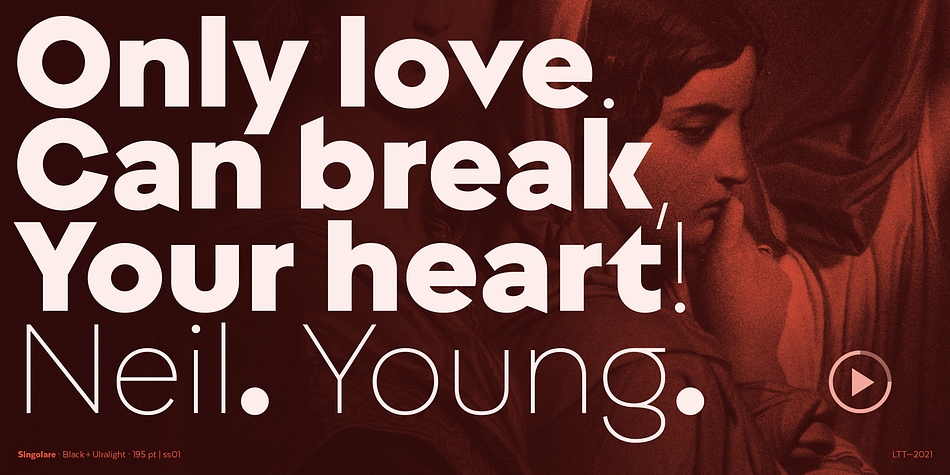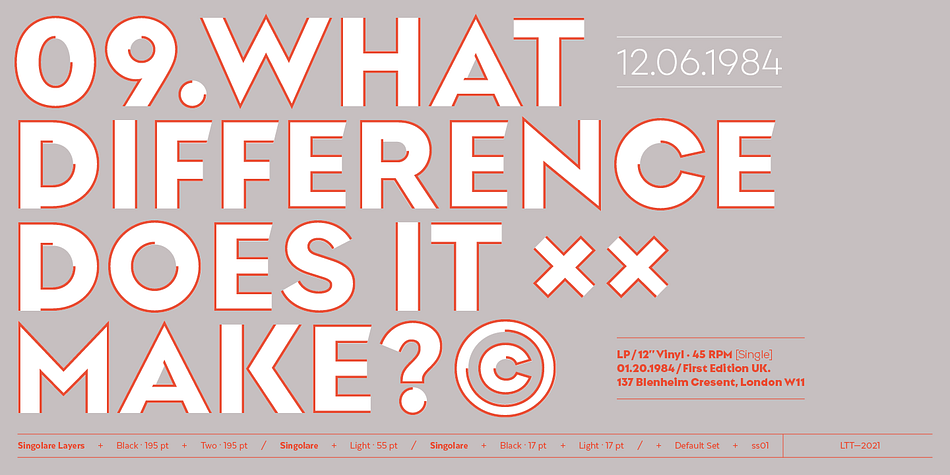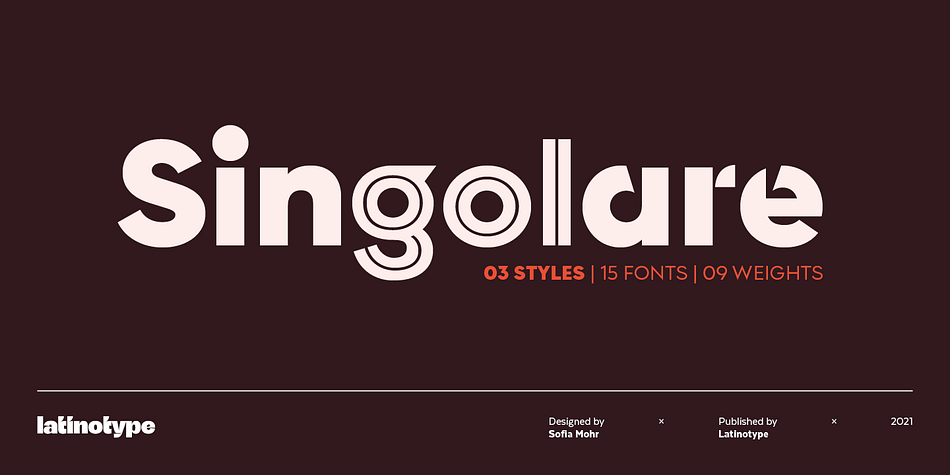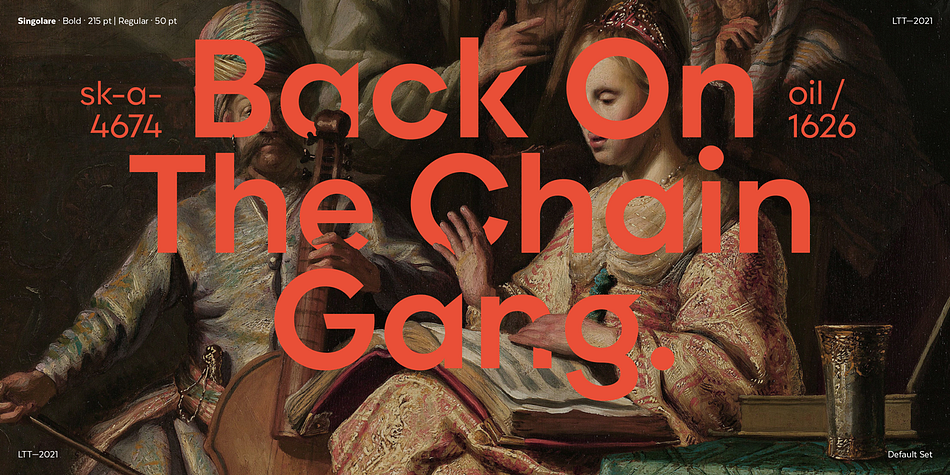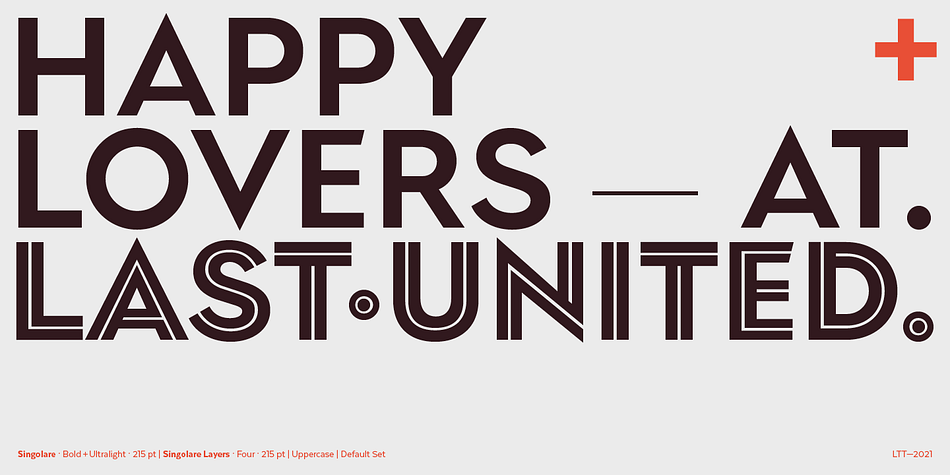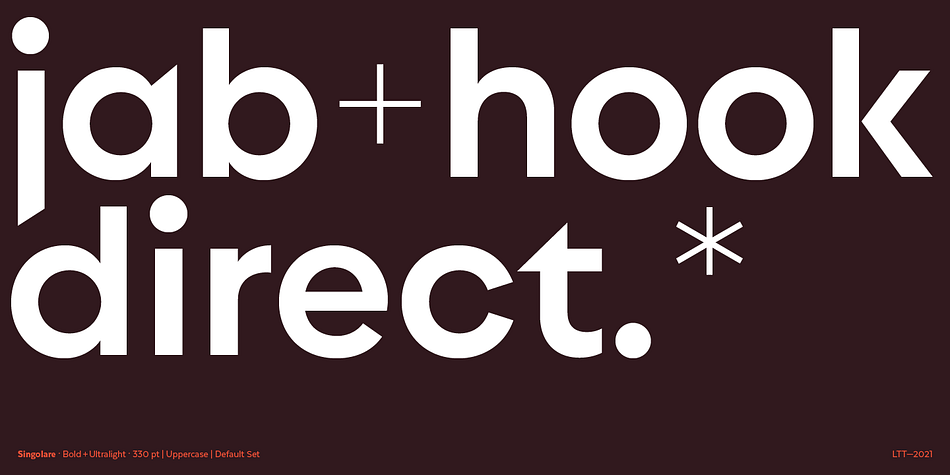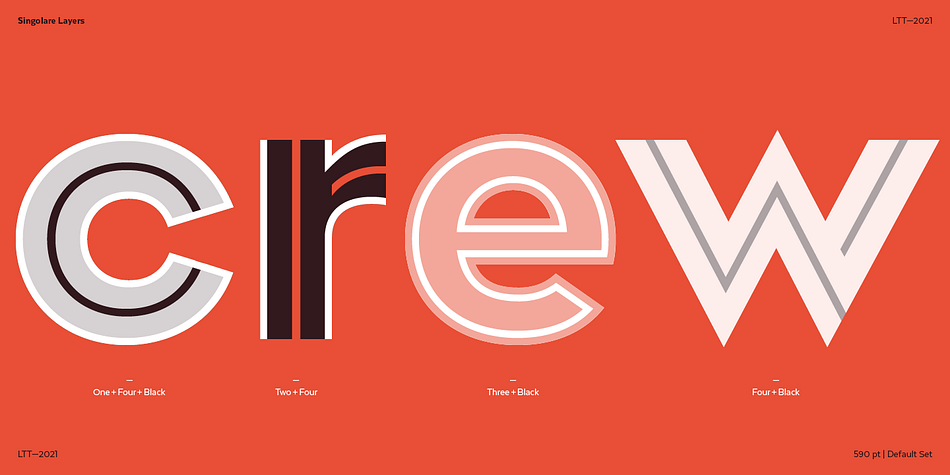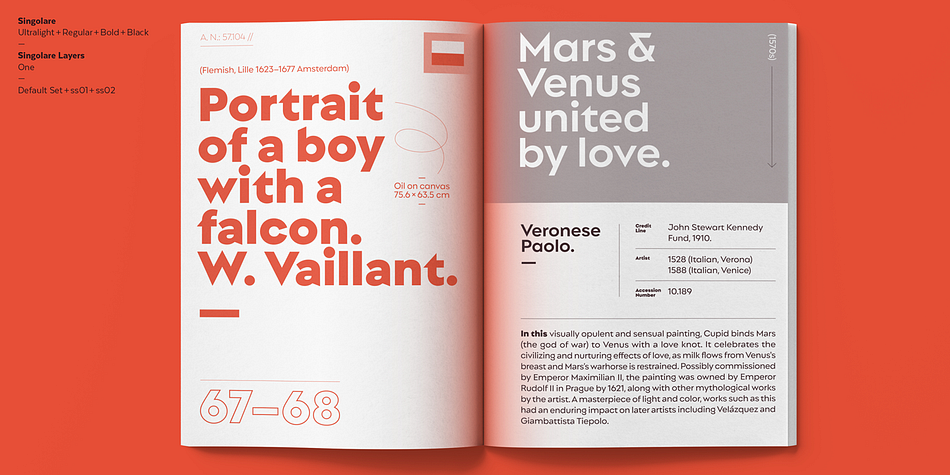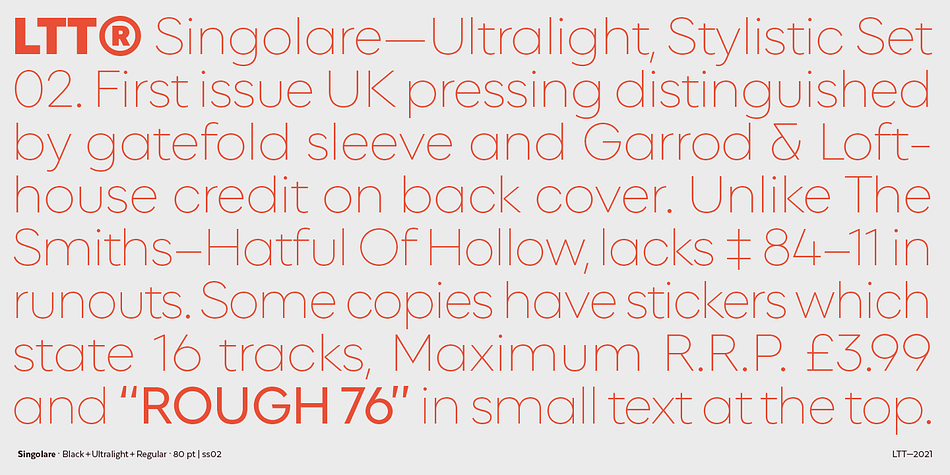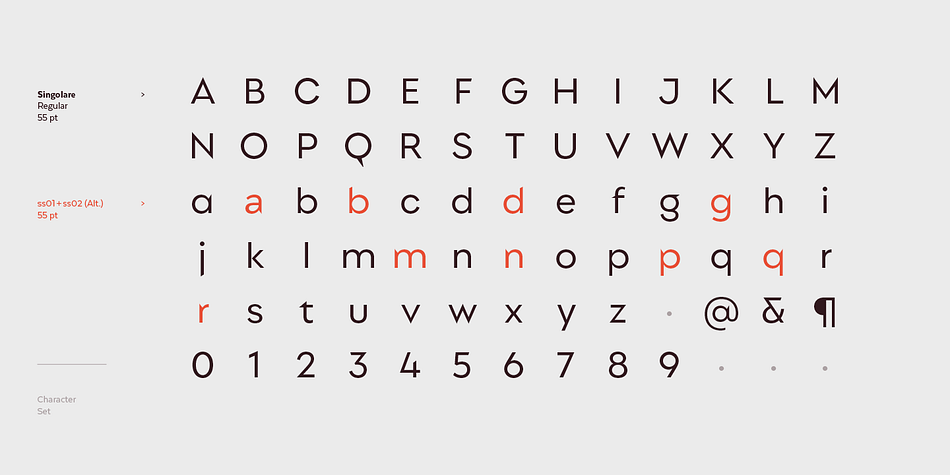
Designed by Sofia Mohr, Singolare is a sans serif and stencil font family. This typeface has fifteen styles and was published by Latinotype.
The singular Singolare! A contemporary geometric sans-serif with angular terminations and amazing X height. This font’s primary characteristic is the difference in styles between weight. As it gains weight, it gains singularity.
The variety of weights, styles and layers makes this the perfect font for displays and short texts that need major visual impact. Singolare comes with five weights from Ultralight to Black, each weight with its own stencil version and expressive cuts, as well as four decorative versions: three outline versions and one inline version. They can work alone or layered with the normal black version and the ability to change colors in each layer, thus expanding the possibilities of use.
Basically, this is the font of your dreams.